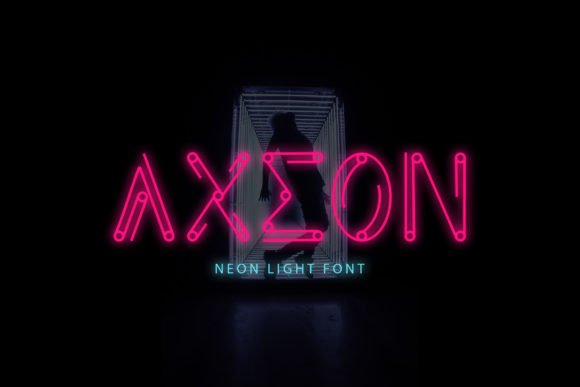
Unlock the Future of Typography with Axeon Font
Have you ever been stuck in a creative rut, staring at a blank page or screen, desperately searching for that one spark to ignite your design? We’ve all been there. But what if we told you that the key to unlocking your next big idea lies in a font that’s as bold as it is beautiful? Enter the Axeon Font, a futuristic and neon-styled display font that’s about to take your designs to the next level.
Axeon Font is more than just a typeface – it’s a statement piece that adds a touch of edginess and sophistication to any project. Whether you’re a seasoned designer or just starting out, this font is the perfect addition to your toolkit. With Axeon Font, you’ll be able to create designs that truly stand out from the crowd, making it a valuable asset for any creative professional.
Axeon Font Key Features
- Font Family: Axeon is a sans-serif font family designed for digital use.
- Character Set: The font family includes a wide range of characters, including Latin, Cyrillic, and Greek alphabets, as well as punctuation and symbols.
- Unique Characteristics: Axeon Font features a clean, modern design with a focus on legibility and readability, making it suitable for digital interfaces and publications.
- Font Size and Resolution: Axeon Font is designed for use at various sizes, from 8pt to 24pt, and is optimized for display at resolutions of 72 dpi to 300 dpi.
Axeon Font Review
Axeon Font is a unique and stylish typeface that can add a touch of sophistication to any design. Here’s what I think about it:
- Modern feel: Axeon Font has a sleek, modern aesthetic that’s perfect for contemporary designs.
- High legibility: The font is well-designed for readability, making it suitable for body text and headings.
- Customizable: Axeon Font offers various styles, from light to bold, allowing designers to choose the perfect weight for their project.
- Limited versatility: Axeon Font might not be suitable for traditional or vintage designs, as it has a distinctly modern feel.
- Not ideal for small text sizes: While Axeon Font is legible, it can become difficult to read at very small text sizes, requiring careful adjustment.
- Lack of boldness in the light weights: Some of the light weights of Axeon Font can appear too similar, lacking the boldness and distinction needed for effective typography.
Axeon Font is a solid choice for modern designs where readability and style are crucial. While it may have some limitations, it’s an excellent option for designers who want to add a touch of sophistication to their work.
For best results, use Axeon Font in combination with a bold or italic font weight to create visual interest.
Use Axeon Font to create striking headlines or titles in your design projects.
Use Axeon Font to add a touch of sophistication to your presentations and documents.
Alternatives to Axeon Font
Montserrat is a sans-serif font designed for digital use. It’s a great alternative to Axeon Font for body text, especially in applications where a clean and modern look is desired. Montserrat is highly legible and works well in both print and digital formats. It’s a popular choice for designers who want a font that’s both versatile and stylish.
Comparison to Axeon Font: Montserrat is more geometric and has a more pronounced x-height, giving it a slightly more industrial feel. Axeon Font is more rounded and has a softer appearance, making it better suited for designs that require a warmer tone.
Open Sans is a clean and modern sans-serif font that’s highly legible in digital formats. It’s a great choice for designers who want a font that’s easy to read and works well in a variety of contexts. Open Sans is a popular choice for websites, apps, and other digital applications.
Is Axeon Font suitable for print applications?
While Axeon Font is optimized for digital interfaces, it can also be used for print applications. However, please note that the font may not render as intended on certain paper stocks or printing presses. For print applications, we recommend using a high-quality print font or consulting with a professional typesetter to ensure optimal results.